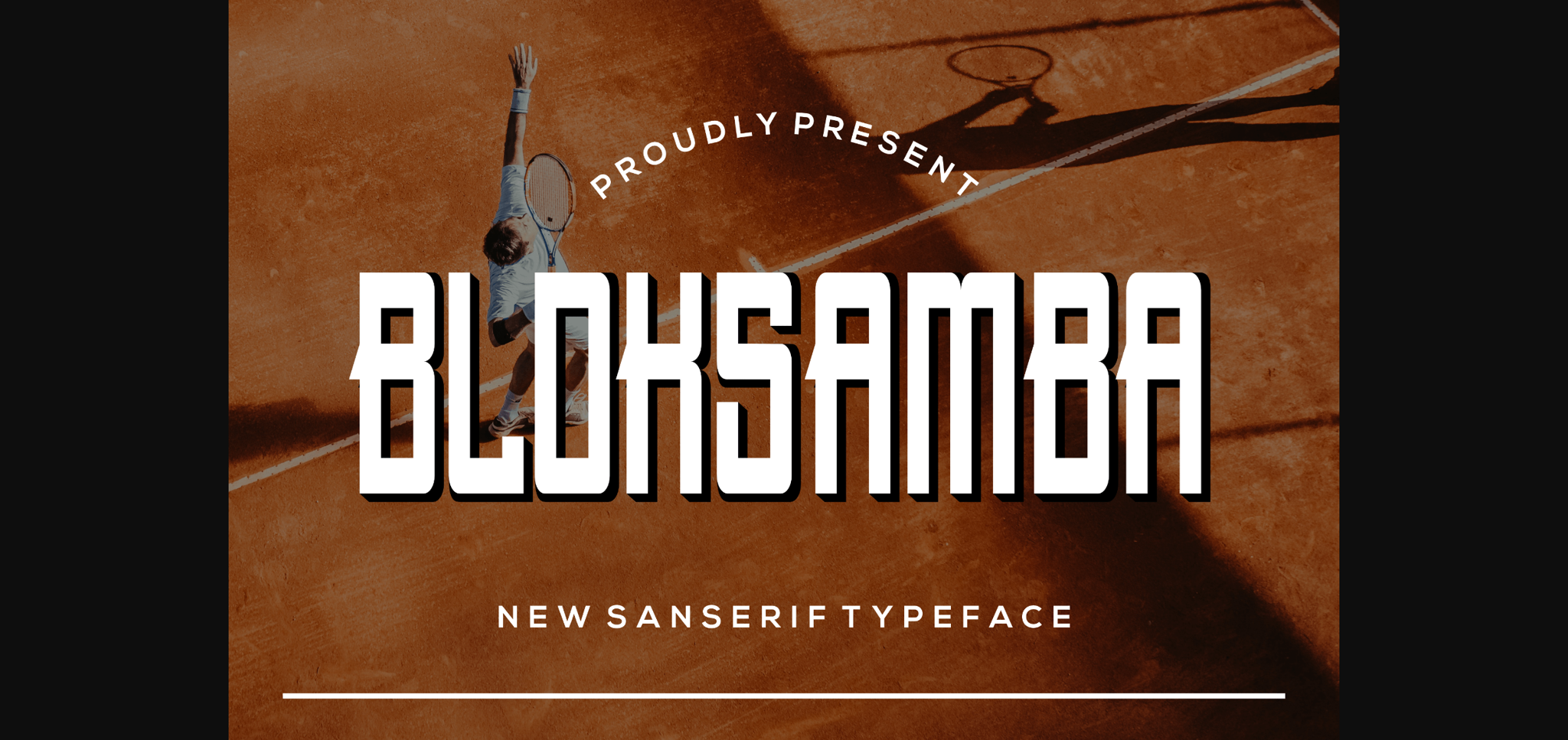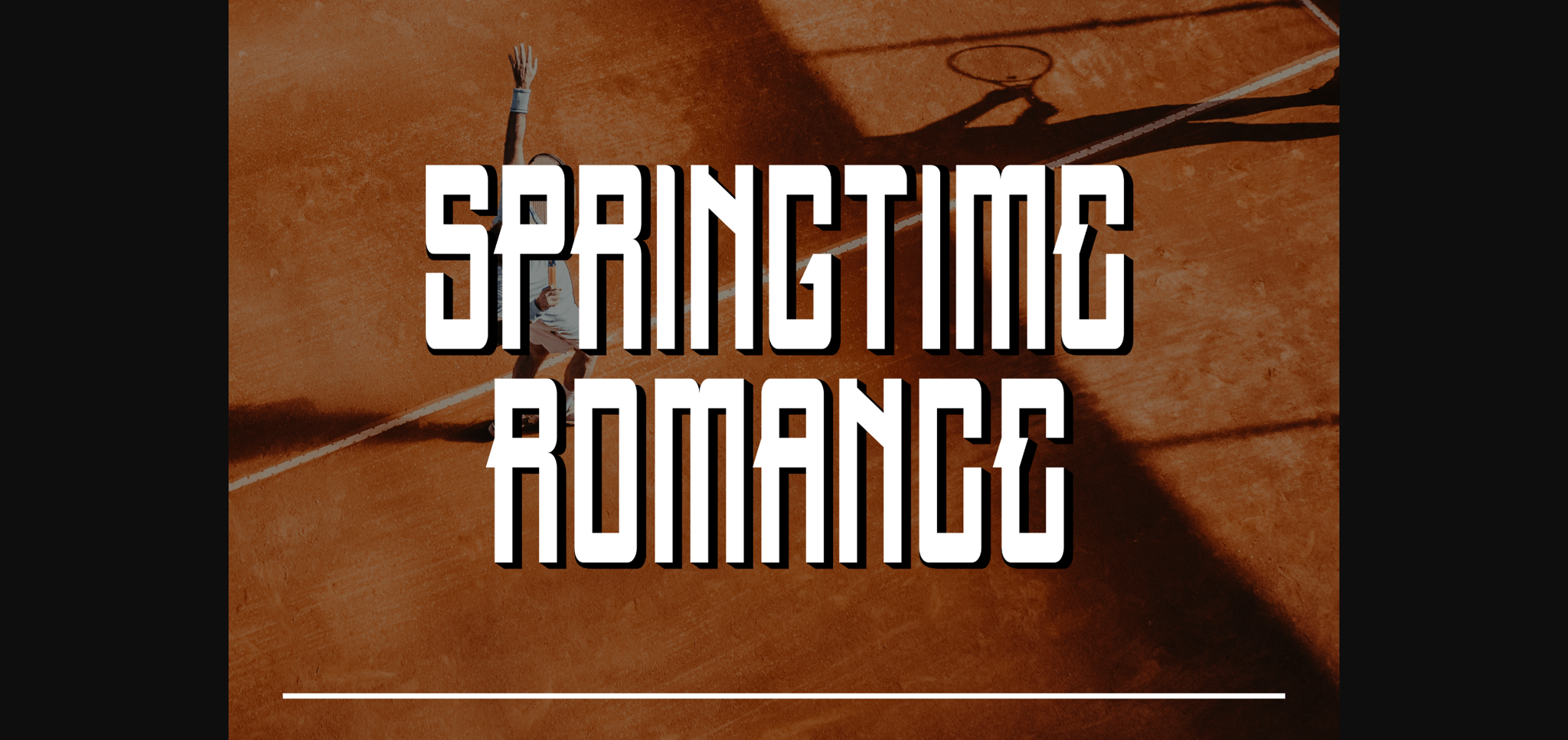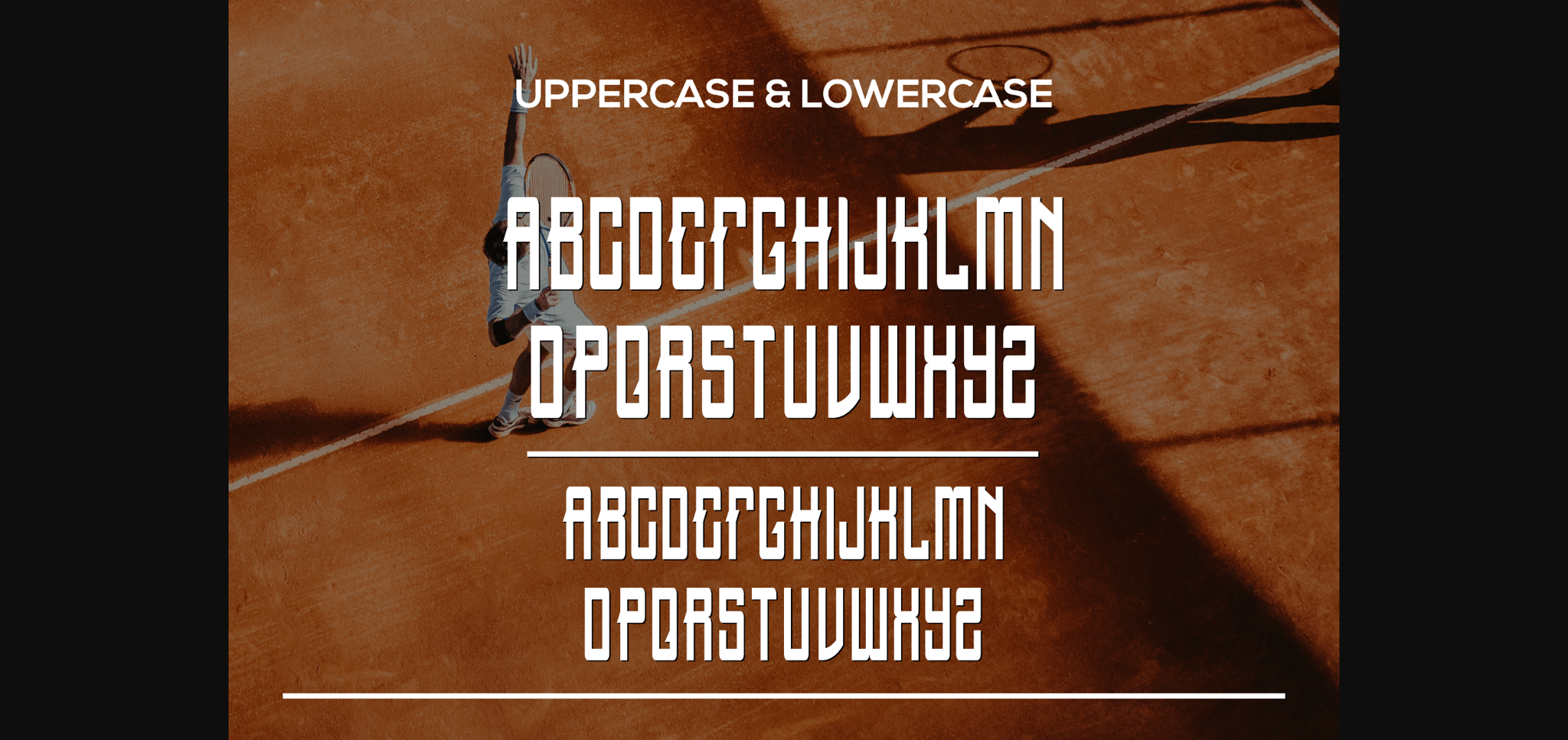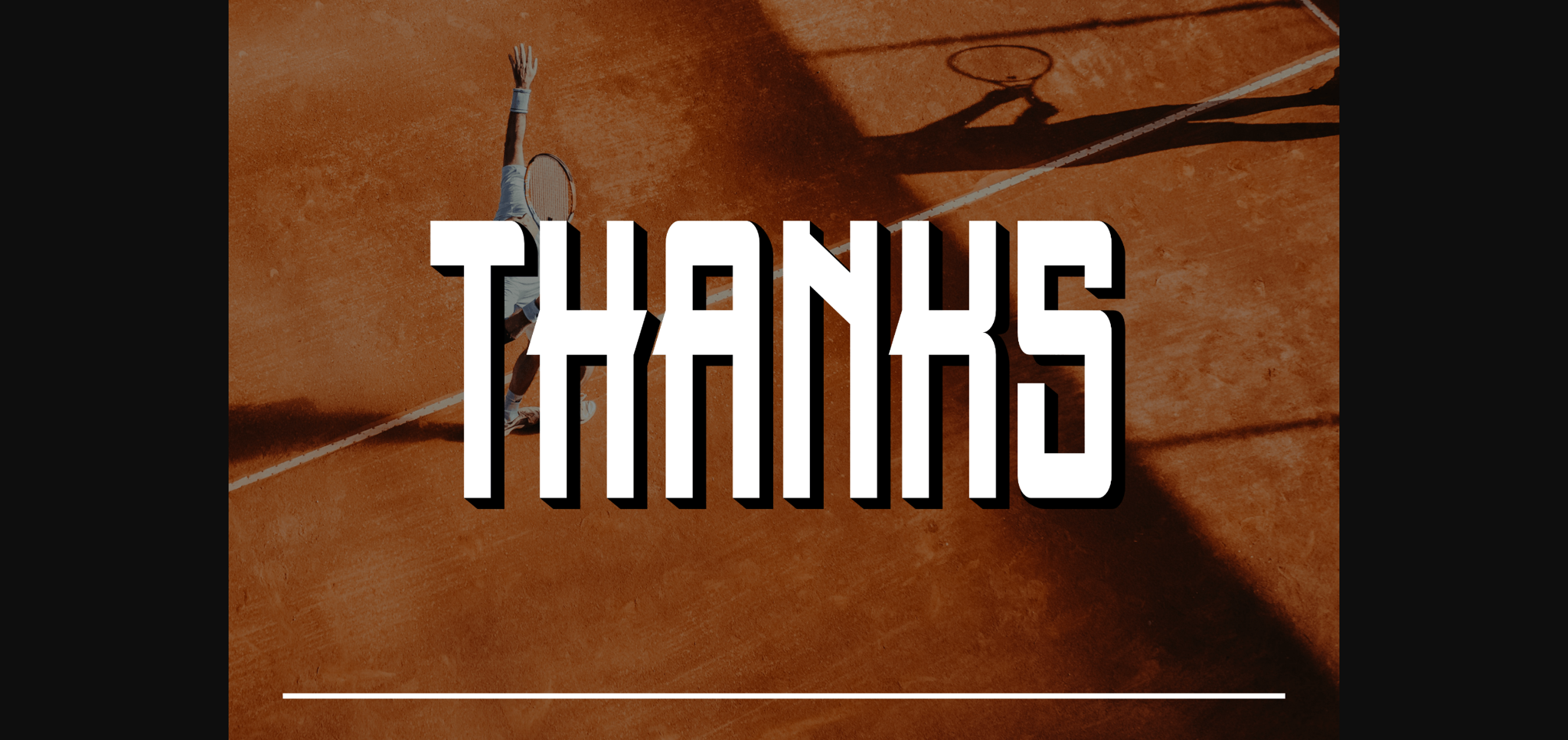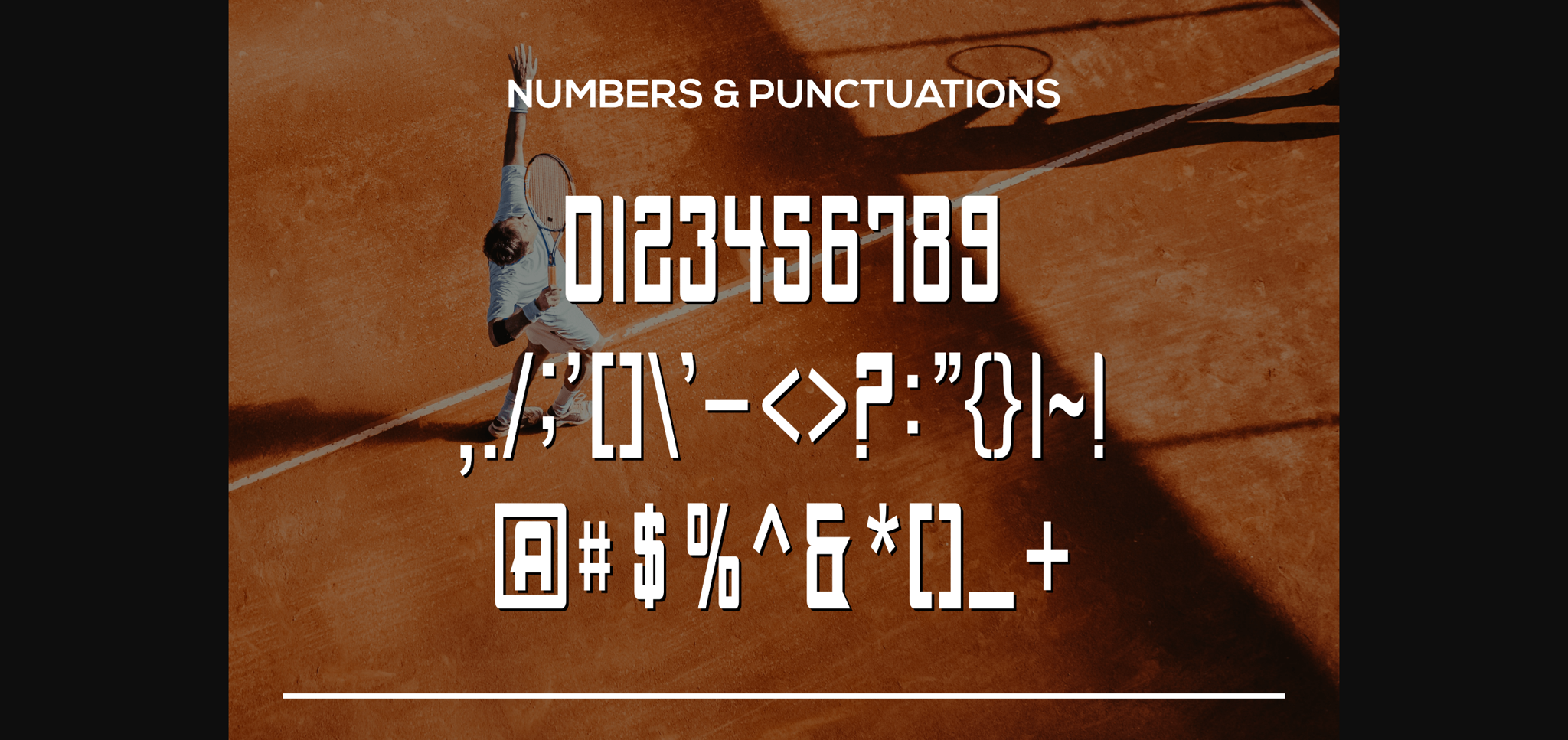
Bloksamba is a sans serif with a charming touch of style. It is perfect for branding, social media, advertising, posters, flyers, and many other creative ideas.